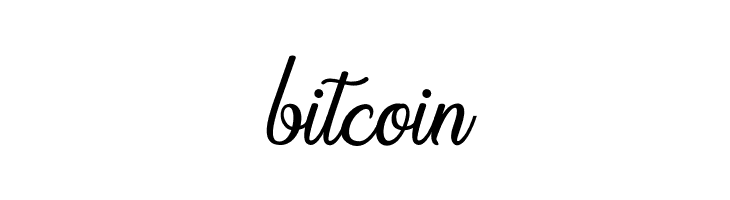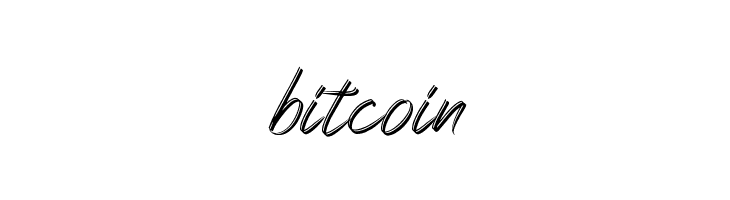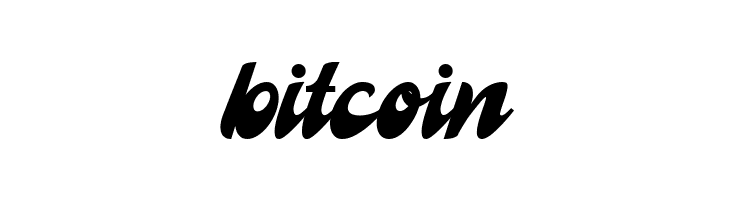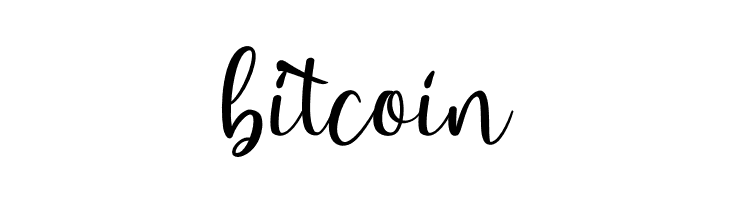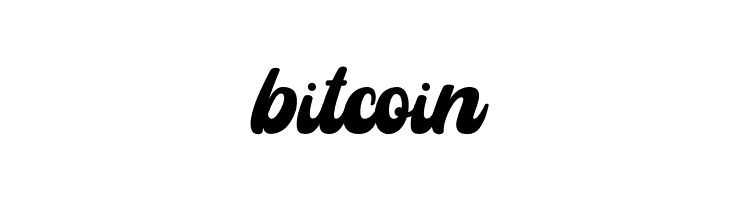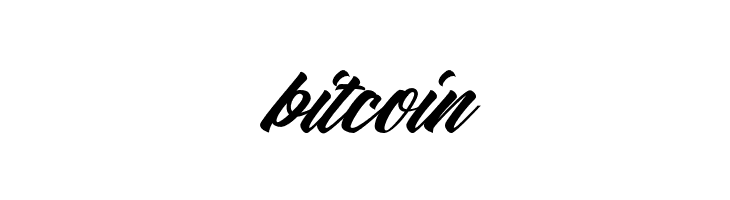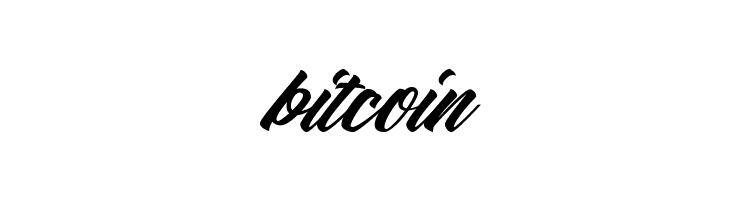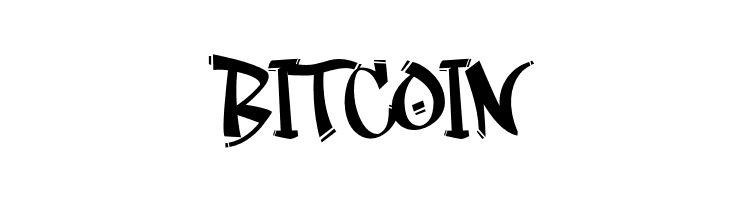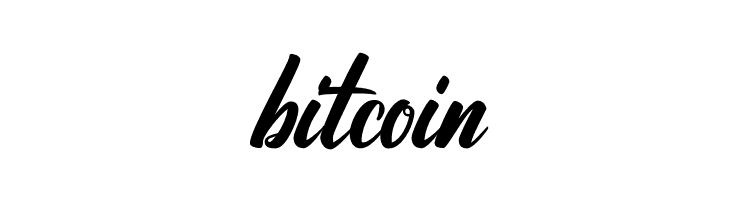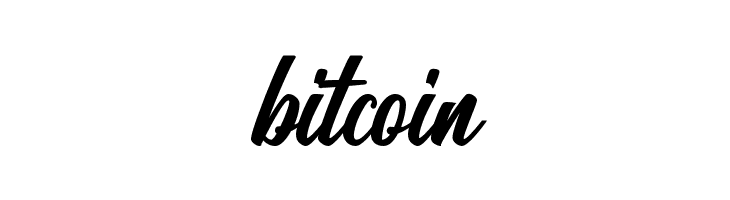
A flowing, elegant script font with bold, expressive strokes.
A lively and expressive script font with elegant, flowing characters.
A fluid and elegant script font with dynamic letterforms.
A bold, cursive font with elegant, flowing lines and classic style.
A bold, dynamic script font with a cursive, handwritten style.
A whimsical and decorative font with elegant swirls and loops.
A whimsical, curly font with decorative uppercase and cursive lowercase letters.
A bold, flowing script font with elegant curves and high contrast.
A bold, flowing script font with elegant, connected letters.
A dynamic and elegant script font with fluid strokes and artistic flair.
A dynamic, handwritten-style font with sharp, angular strokes.
A dynamic, cursive-like font with sharp, angular strokes and a modern flair.
A dynamic and flowing script font with elegant cursive letterforms.
A dynamic handwritten font with fluid strokes and a natural flow.
A lively, handwritten script font with a modern and expressive style.
A bold, dynamic script font with elegant, flowing cursive strokes.
A bold, flowing script font with a handwritten appearance.
A bold, dynamic script font with flowing, connected letterforms.
A bold, flowing script font with elegant curves and a handwritten feel.
A bold and expressive script font with fluid, connected characters and dramatic flourishes.
An elegant, flowing script font with graceful curves and loops.
An elegant, flowing script font with ornate uppercase and refined lowercase characters.
A bold, energetic script font with a dynamic, handwritten style.
A bold, energetic script font with a brush-like texture and flowing strokes.
A lively and expressive script font with dynamic strokes and playful elegance.
A lively handwritten font with expressive and dynamic letterforms.
Expressive brush script with high contrast and a handwritten feel.
Expressive, brush-style handwritten script with energetic strokes.
A bold, cursive font with interconnected, flowing characters.
A bold, flowing script font with elegant, interconnected letters.
An elegant script font with flowing, ornate letterforms and intricate swashes.
An elegant script font with ornate swashes and flourishes.
A bold, graffiti-inspired font with dynamic angles and curves.